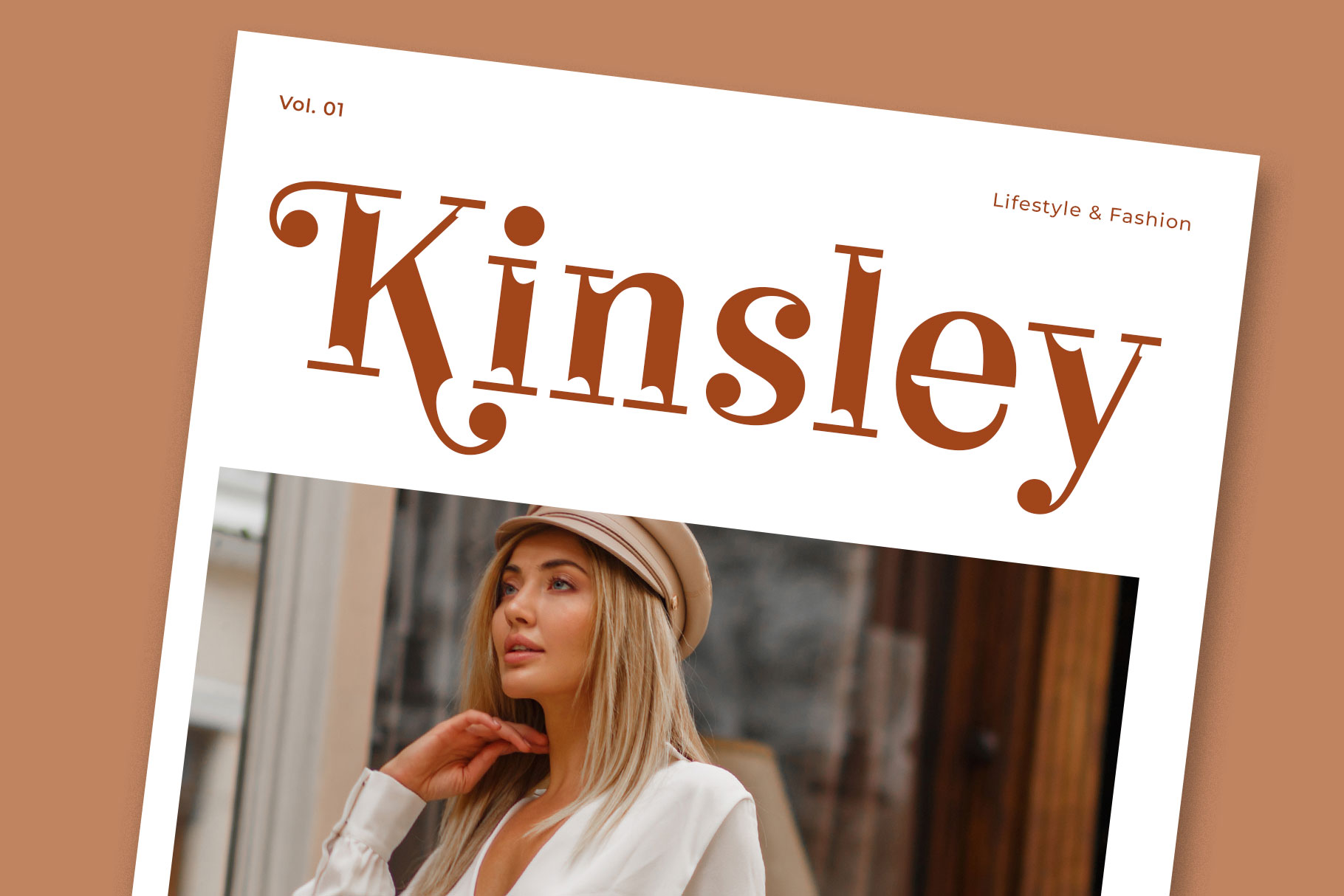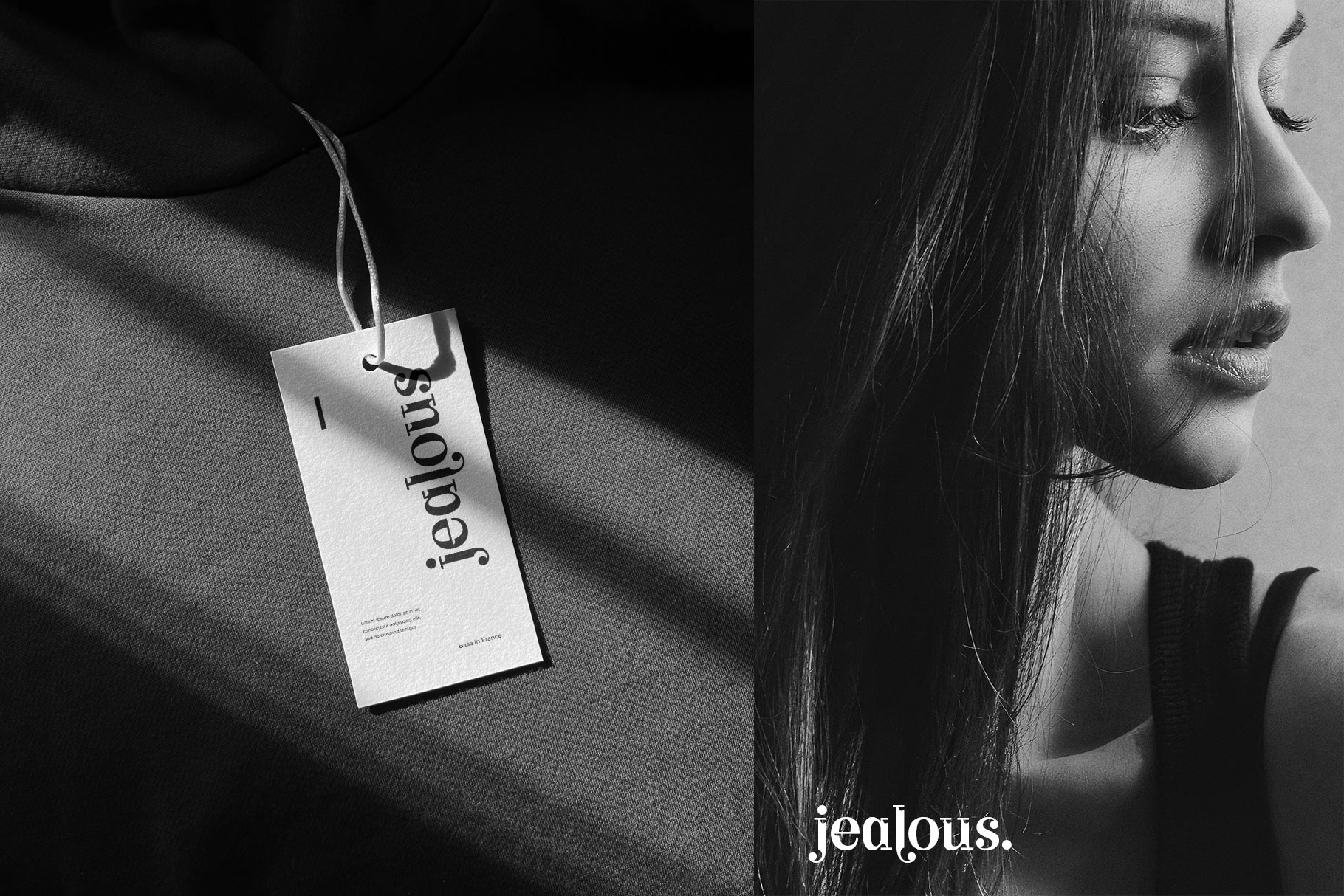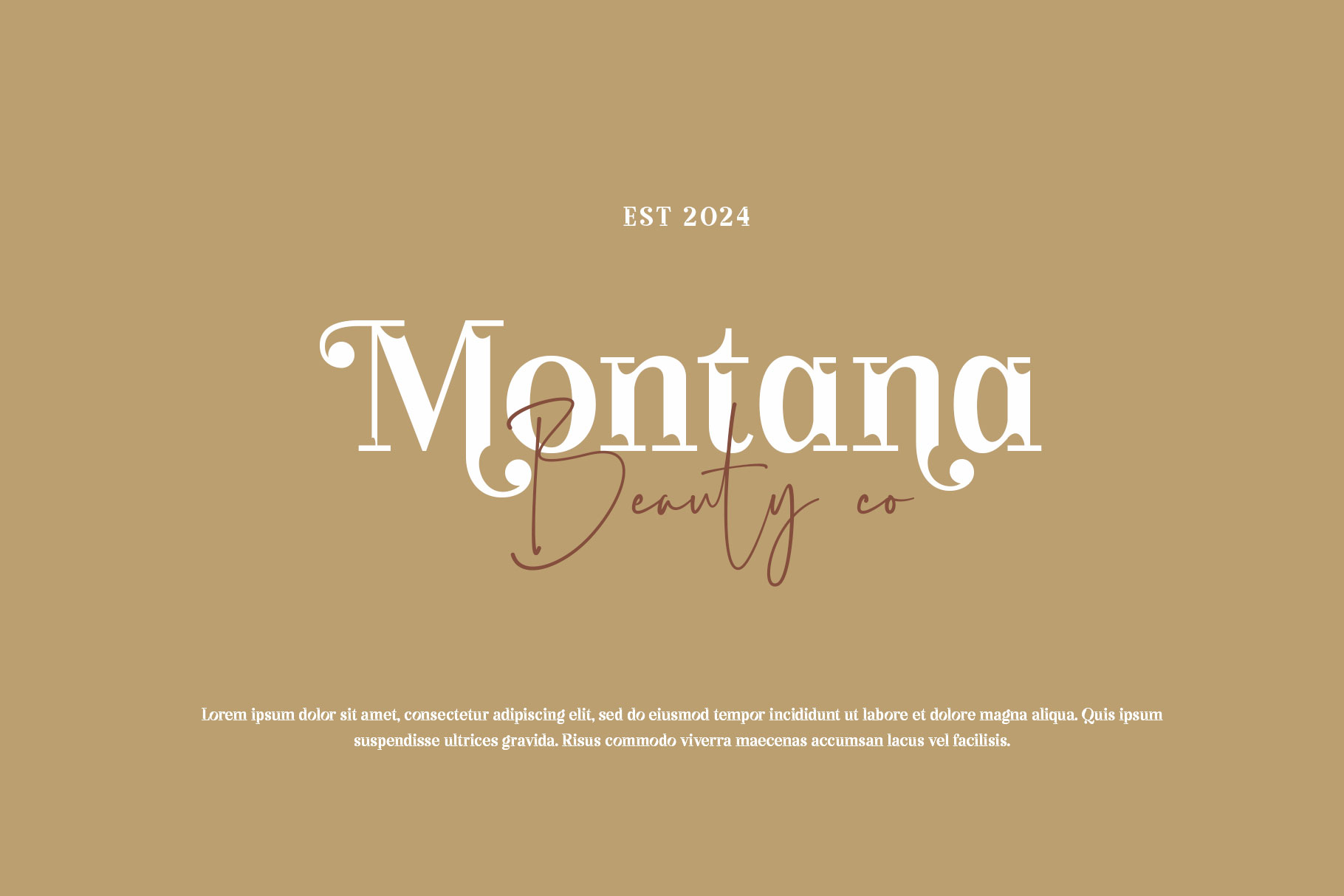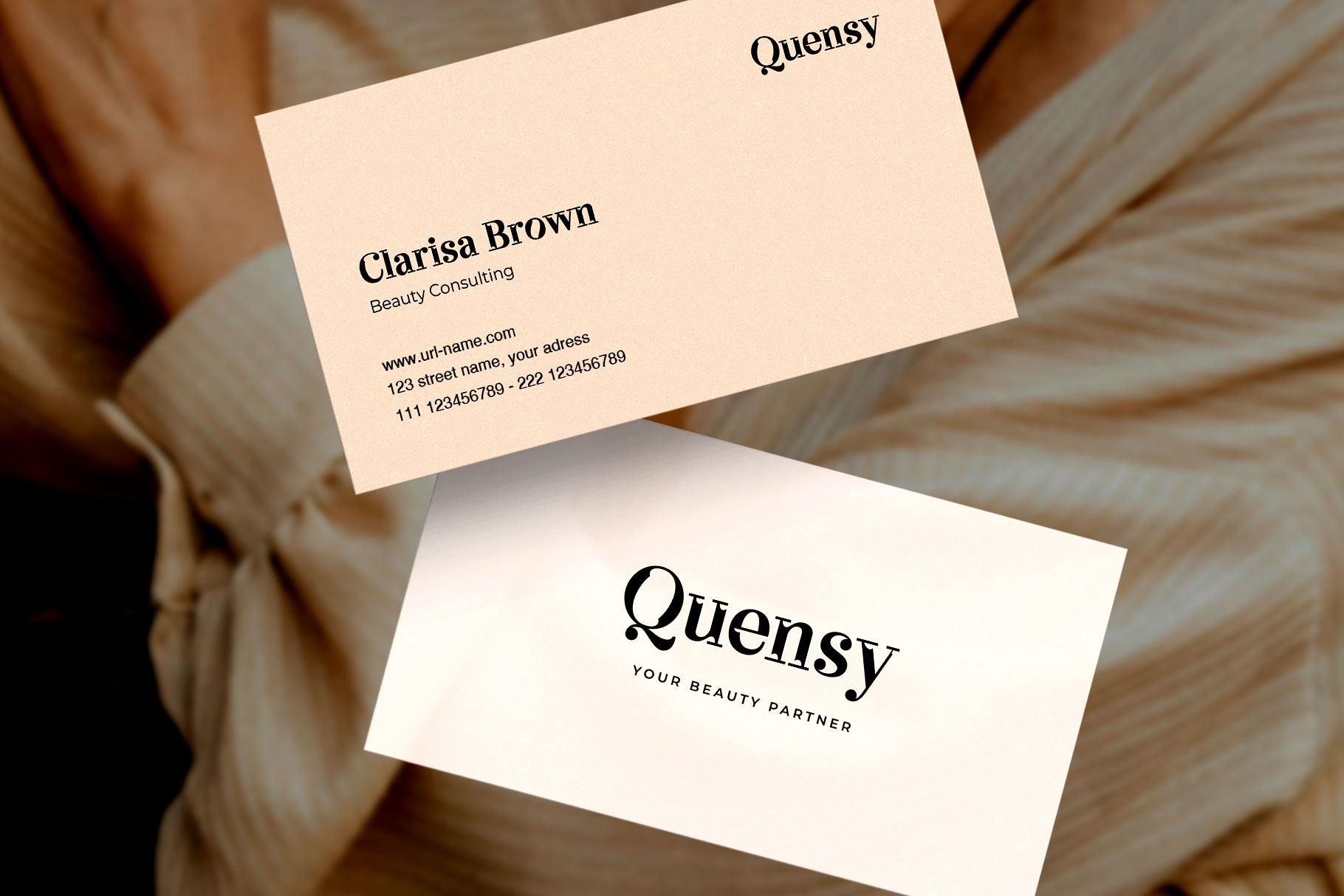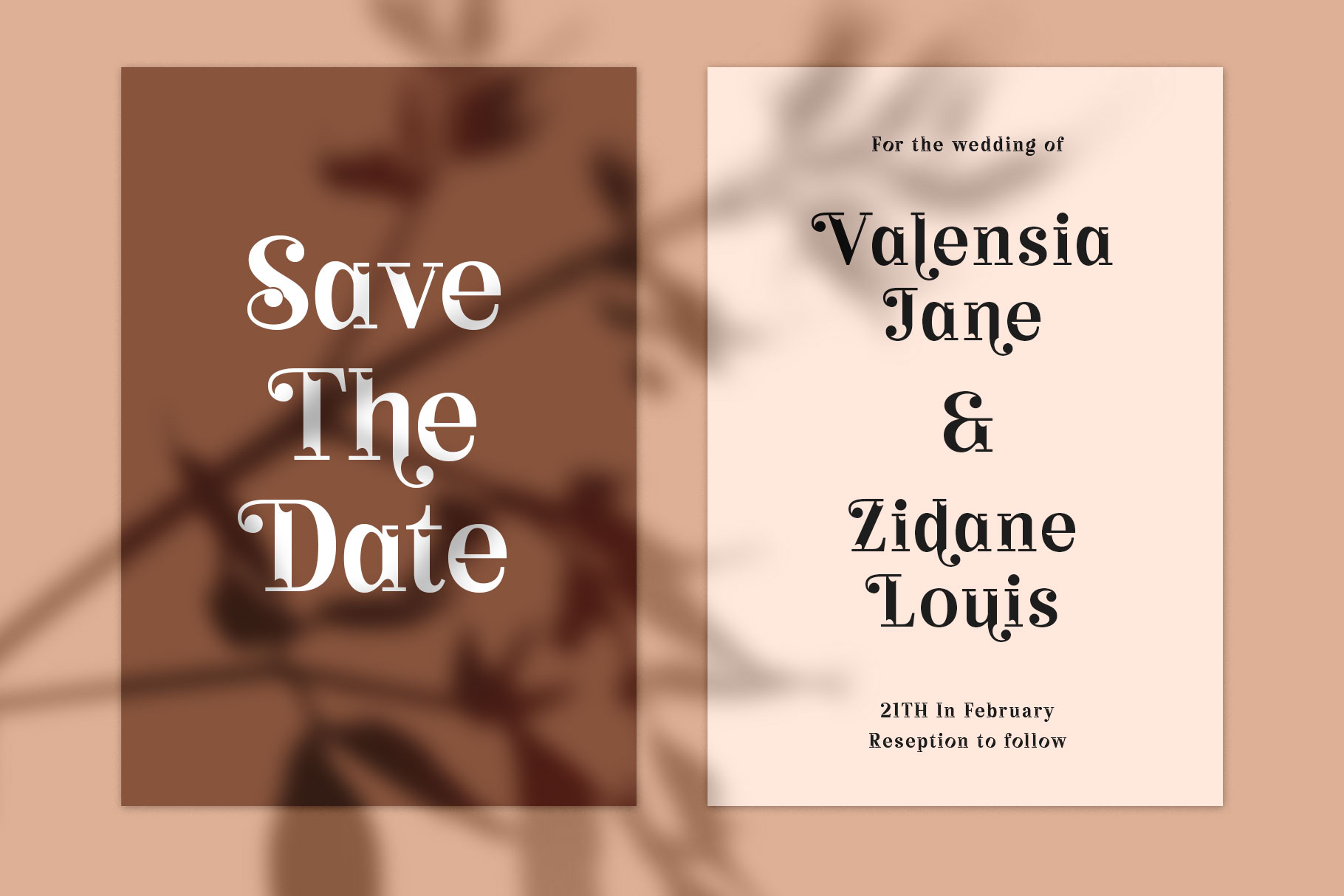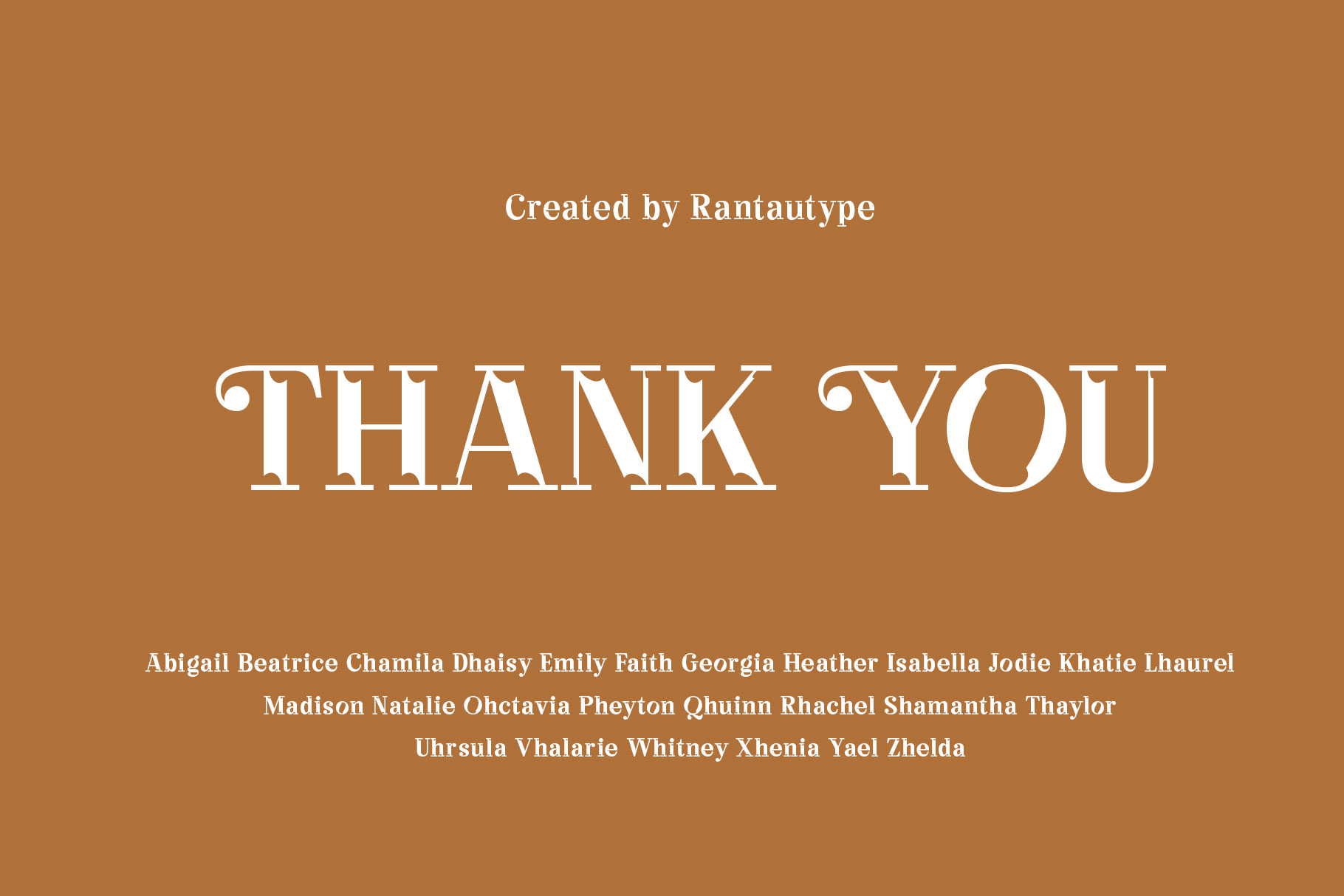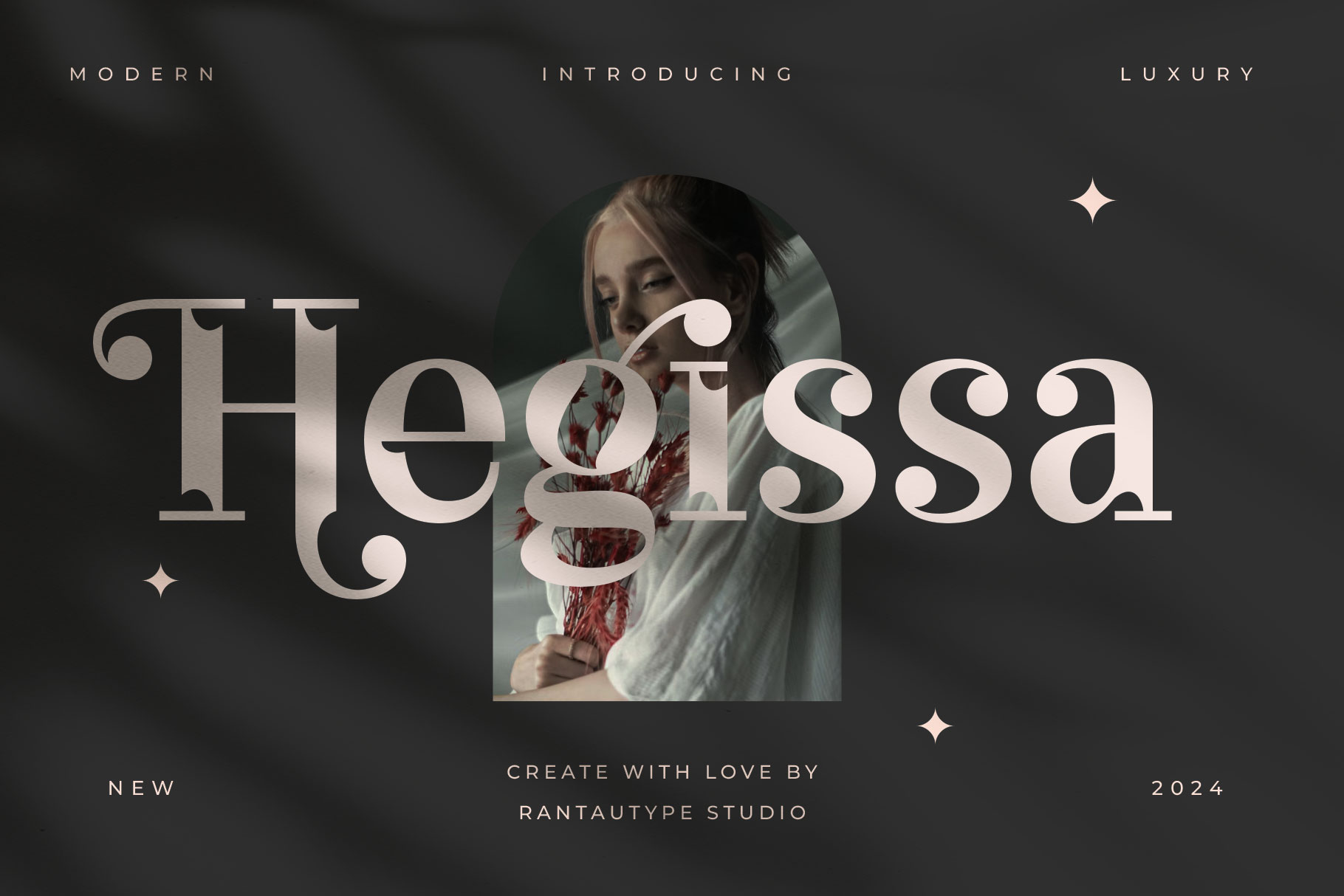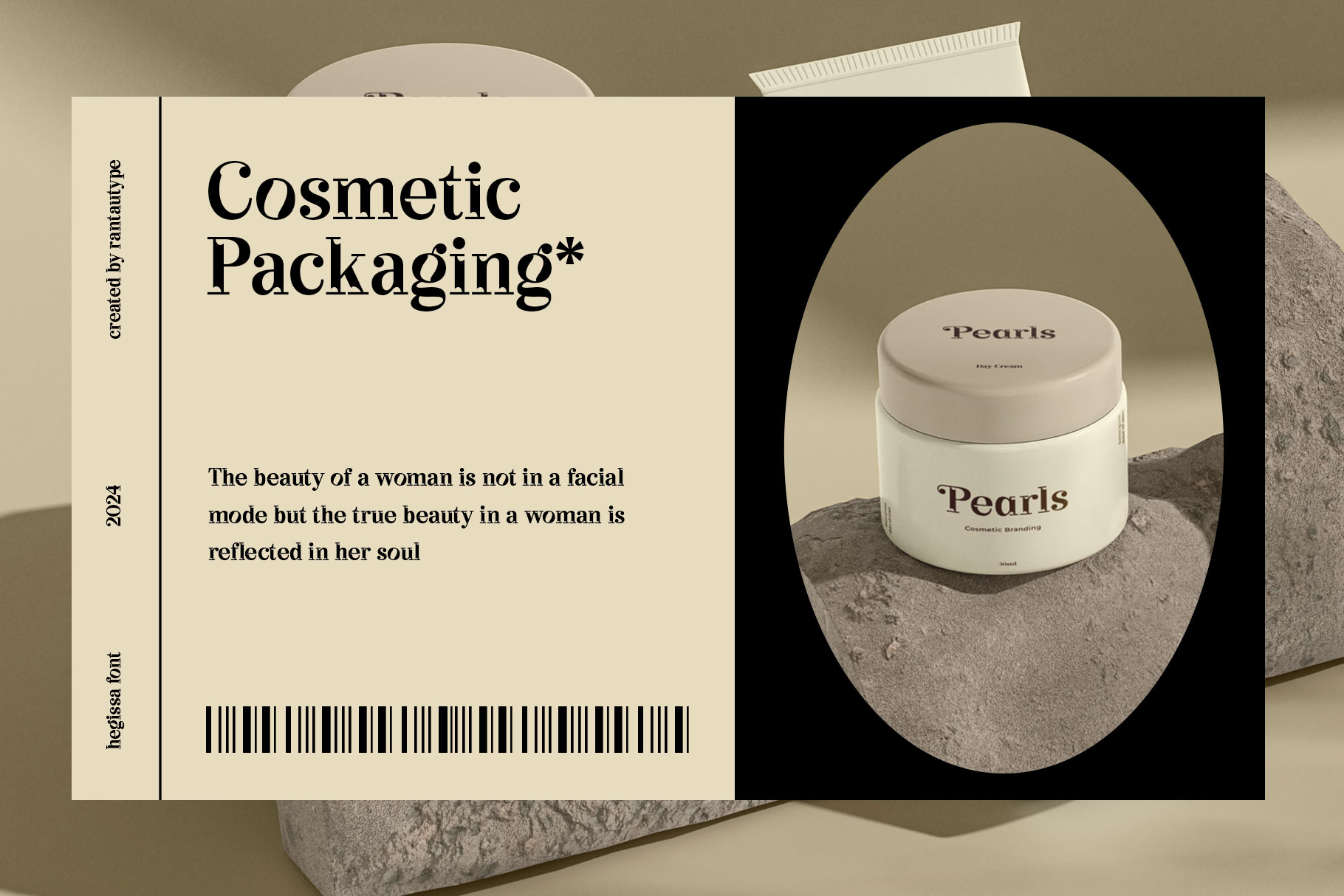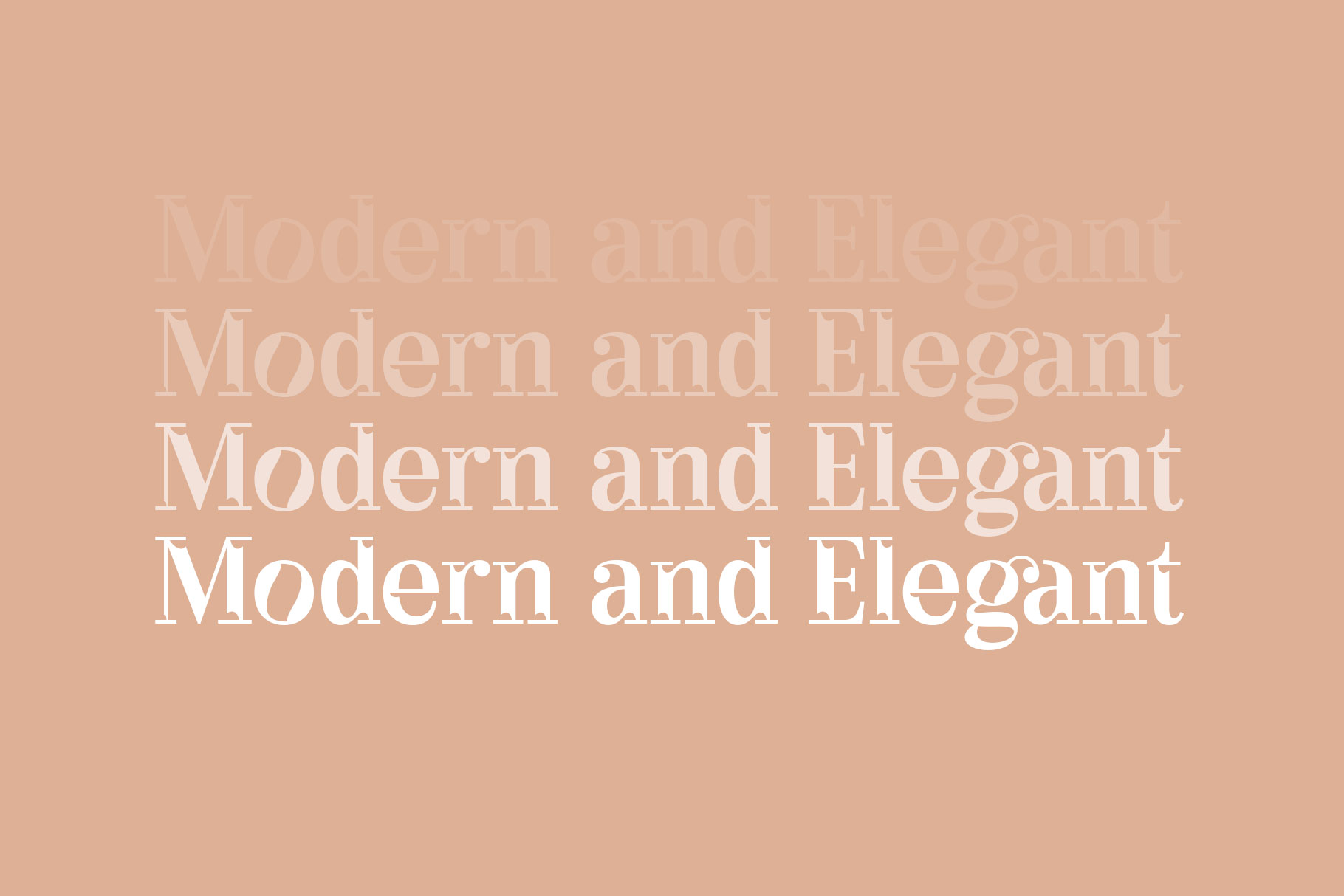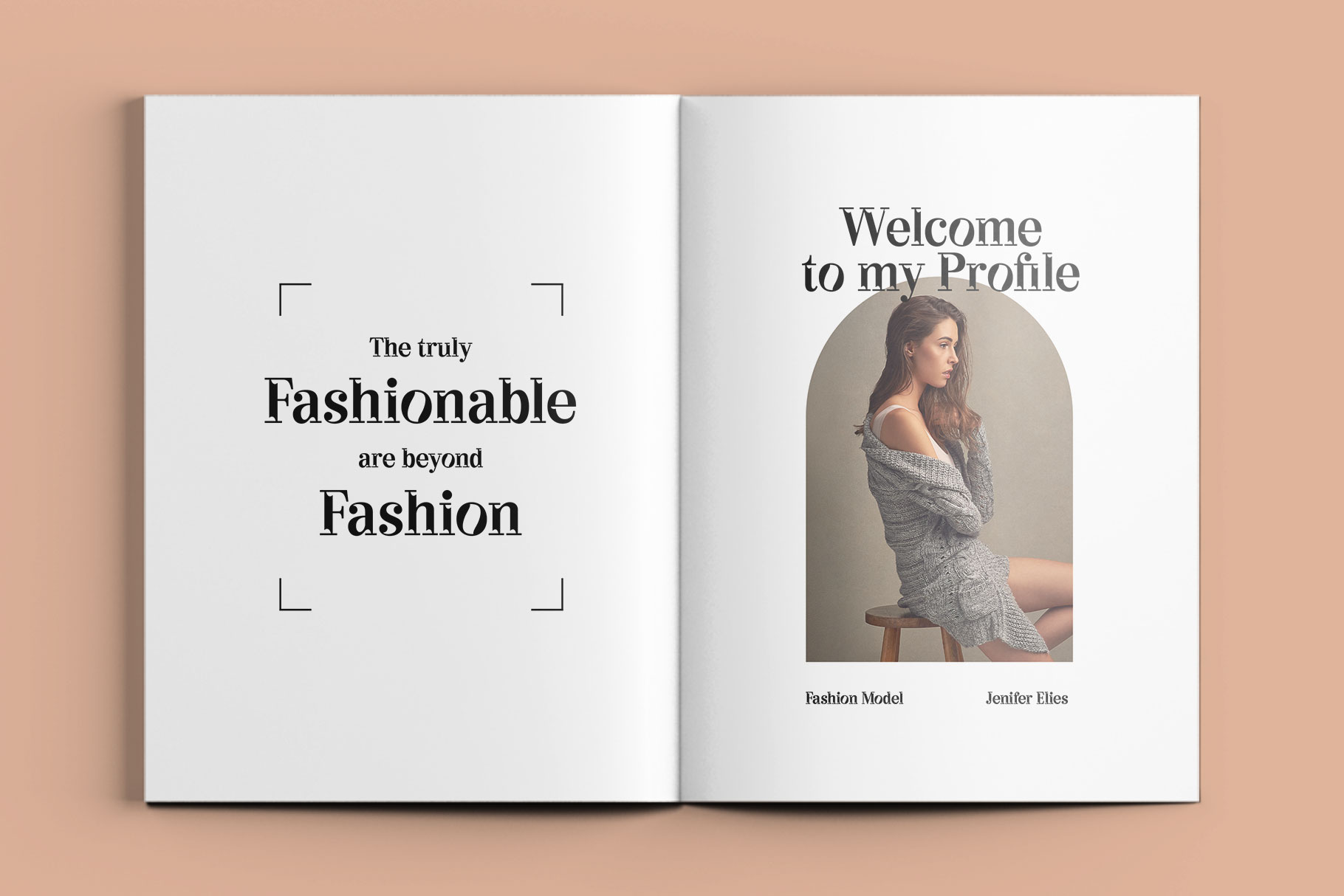
Hegissa Elegant Serif Font
Experience elegancy in a visual form for your design with the Hegissa font. Inspired by elegant brand and beautiful concept, targeting a luxury-forward mentality with subtle curves to make it elegant and fashionable. We love how Each character is formed from a unique shape to create a memorable and luxurious impression . Hegissa come with alternate, ligature and already support multingual accent character.
Hegissa is a beautiful choice for any creative endeavor, chic, lifestyle design such as logos, title, watermark on photography, cover, branding, display and magazine, wedding event, corporate brand, quotes, album cover, business card, business project and many other design project. Hegissa here to elevate you workl!!!